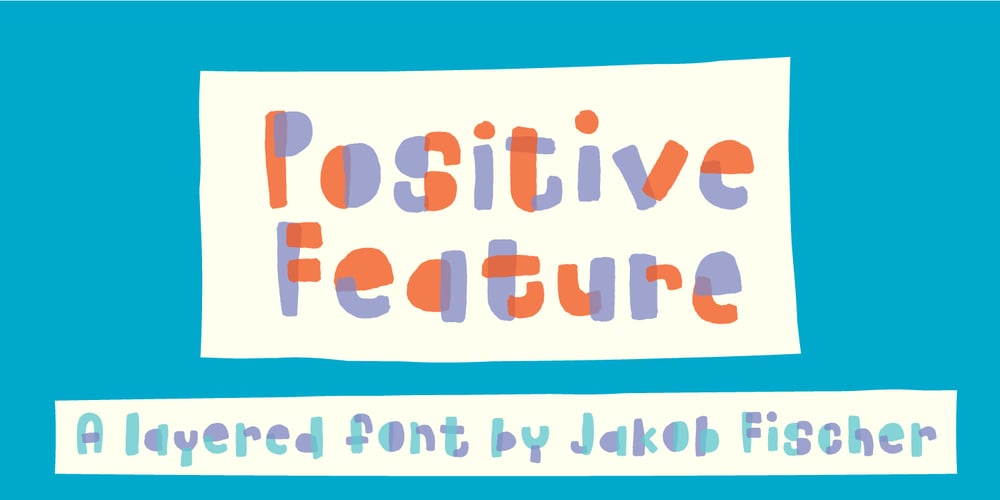
Positive Feature Font Family was designed by Jakob Fischer and published by PizzaDude.dk. Positive Feature contains 3 styles and family package options. Positive Feature is a handmade, layered font. All layers come with contextual alternates, which means you have 4 different versions of each lowercase letter to play around with. What’s cool about the two layer versions is that they mix in a lovely way! Try typing your text with layer 1, copy/paste layer 2 on top in a different color – perhaps even alter the transparency a bit…and all of a sudden a nice effect sees the light of day!